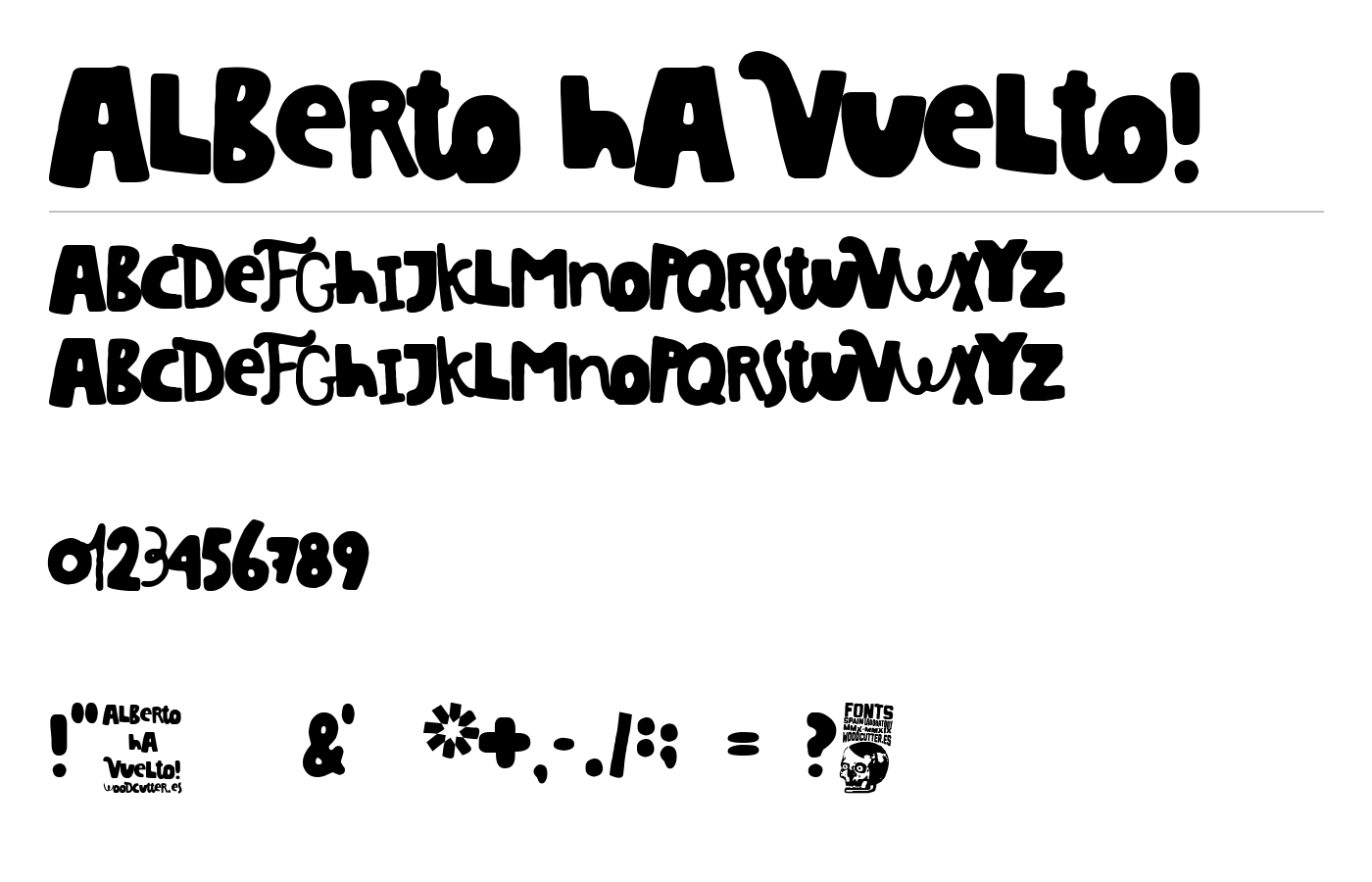
Alberto ha Vuelto! is a playful and bold sans serif font with thick, uneven strokes and quirky letter shapes that create a fun, informal vibe. Its chunky weight and irregular design make it perfect for eye-catching headlines, kids’ projects, and creative branding that seeks a unique, hand-drawn feel. This font works great where personality and charm are needed to engage and entertain audiences.